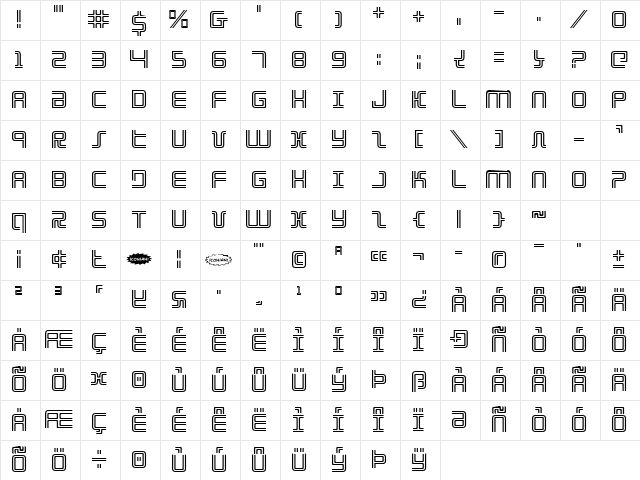
Election Day Regular
Design Context for Election Day
Election Day is a composed and adaptable typeface that performs quietly and consistently across a wide range of design contexts.